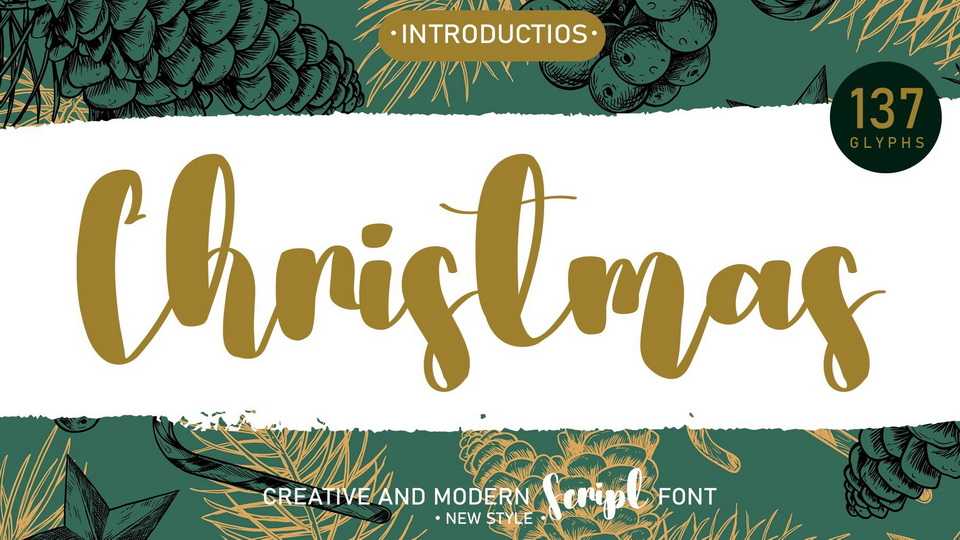
Download Christmas font, a modern and elegant handwritten typeface made of beautiful brush strokes. Christmas font is perfect for your creative ideas, both formal and informal.